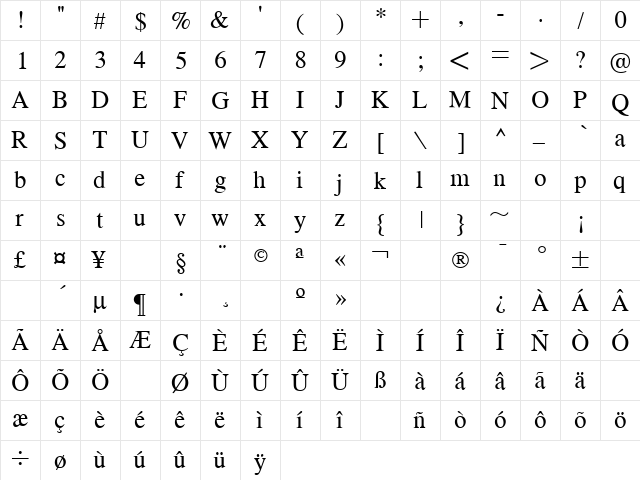
Vega Medium Font Preview
Vega Medium
Vega Medium Font Details
Design Context for Vega Typeface
Vega is a composed and adaptable typeface that performs quietly and consistently across a wide range of design contexts.